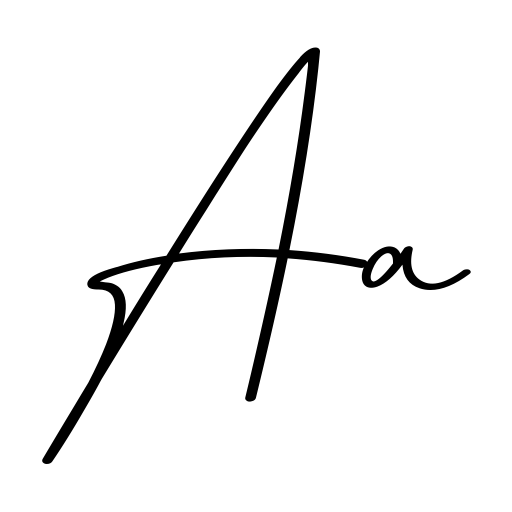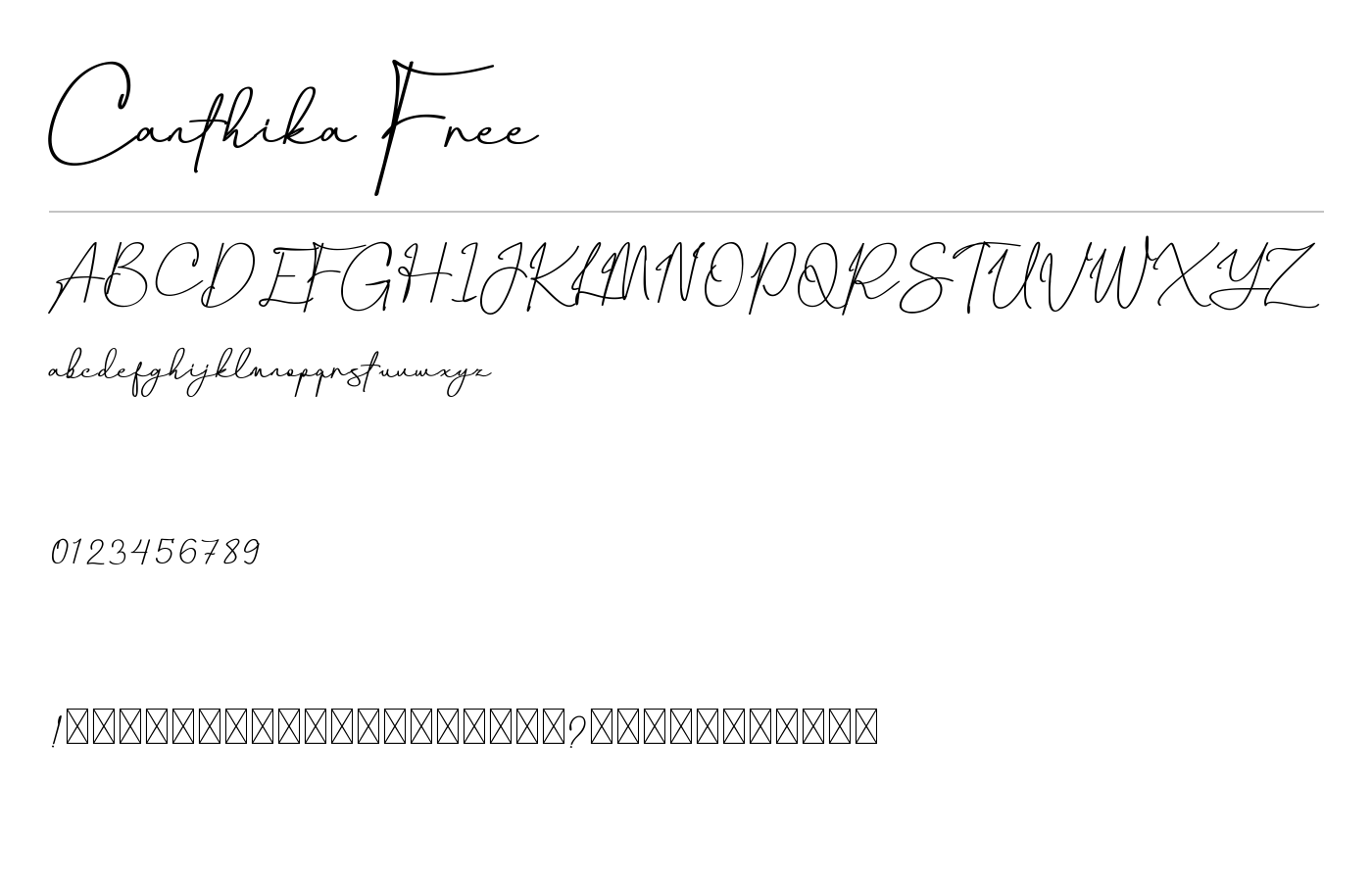
Canthika Free is a delicate, handwritten script font with thin, flowing strokes that convey an elegant and modern feel. Its tall, slender letterforms and subtle flourishes make it ideal for stylish branding, invitations, and feminine designs that seek a personal, sophisticated touch. This font works best in headlines or accent text where its graceful, airy style can truly stand out.
Canthika Free Font
About Canthika Free Font